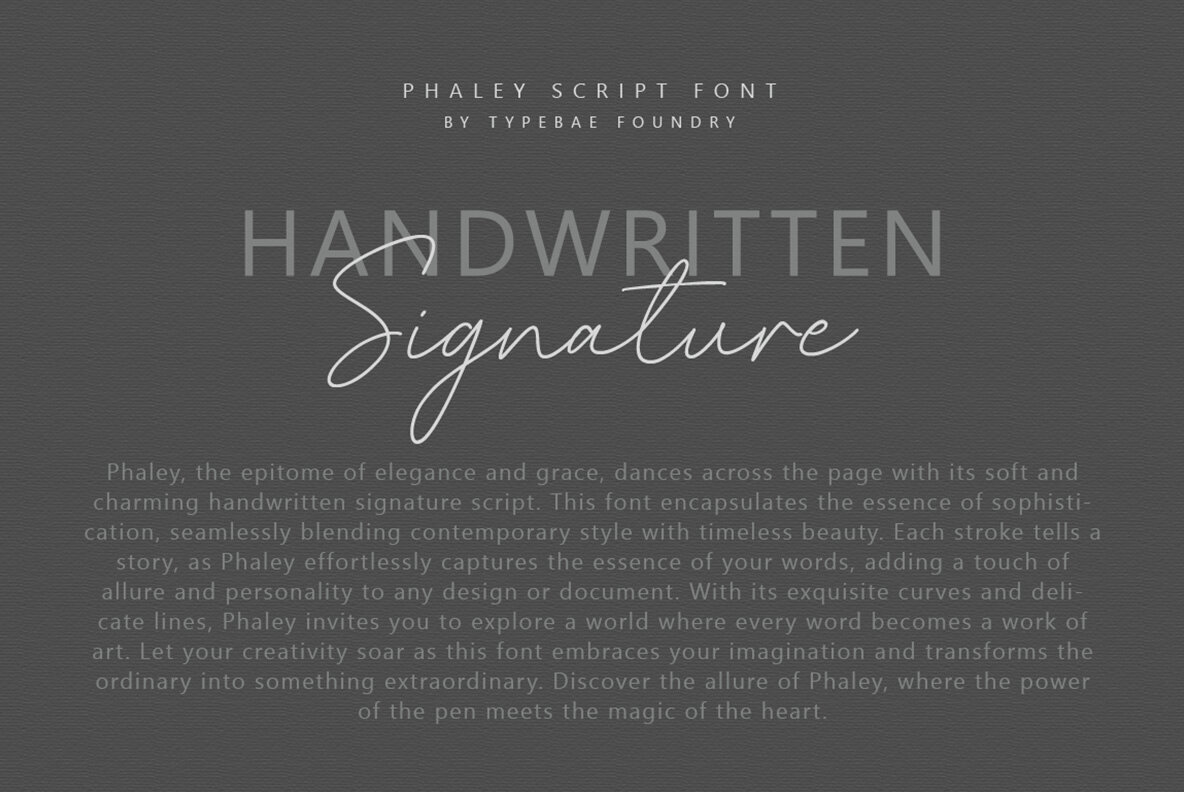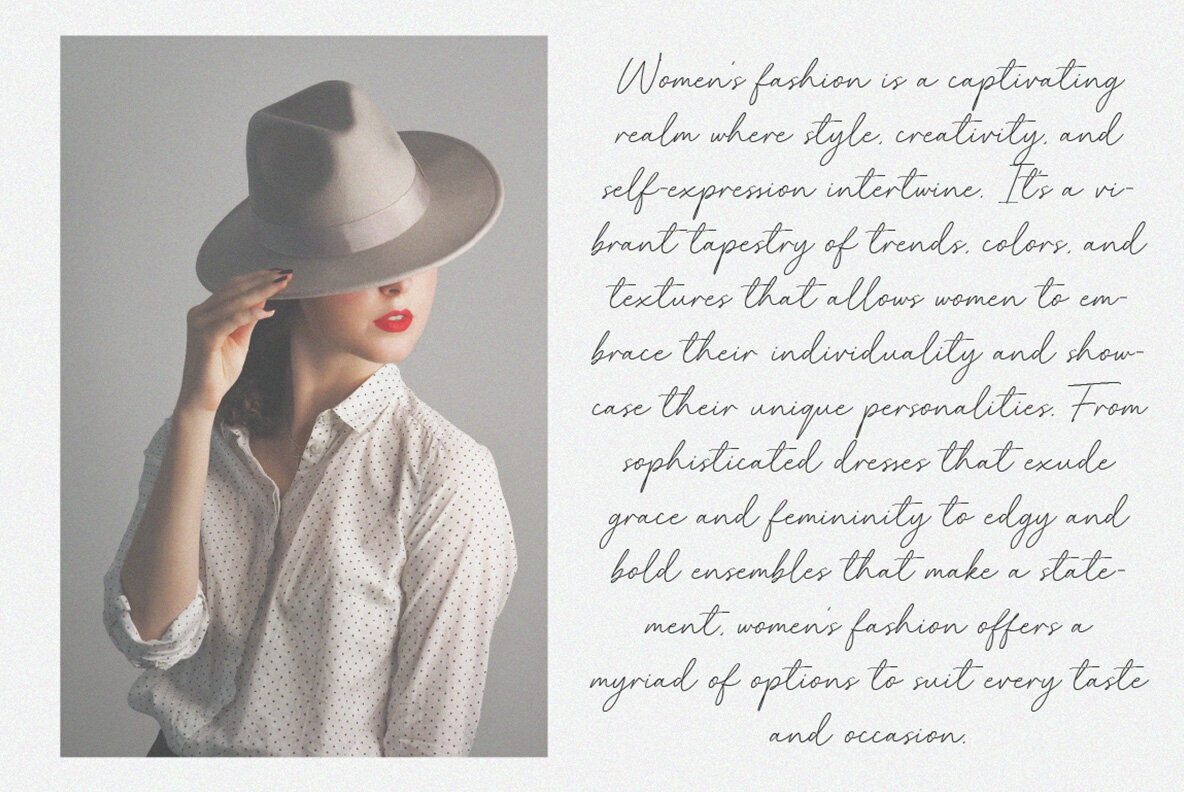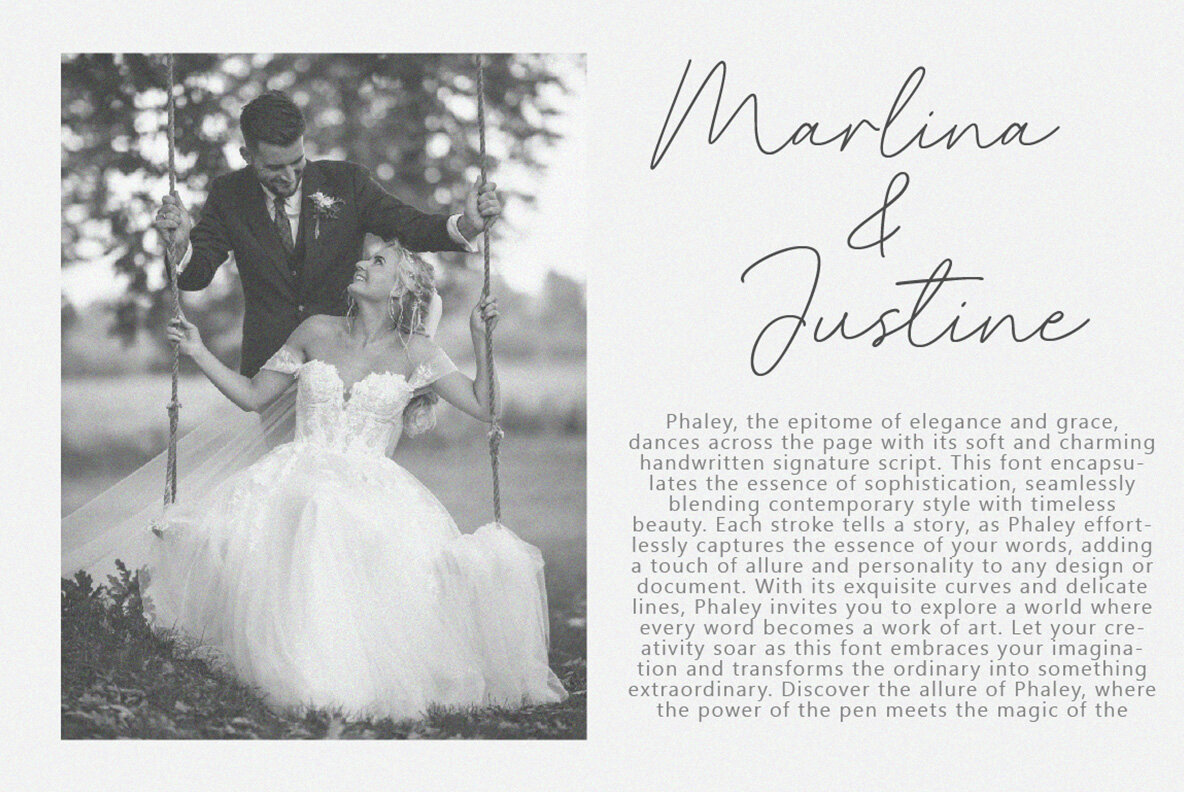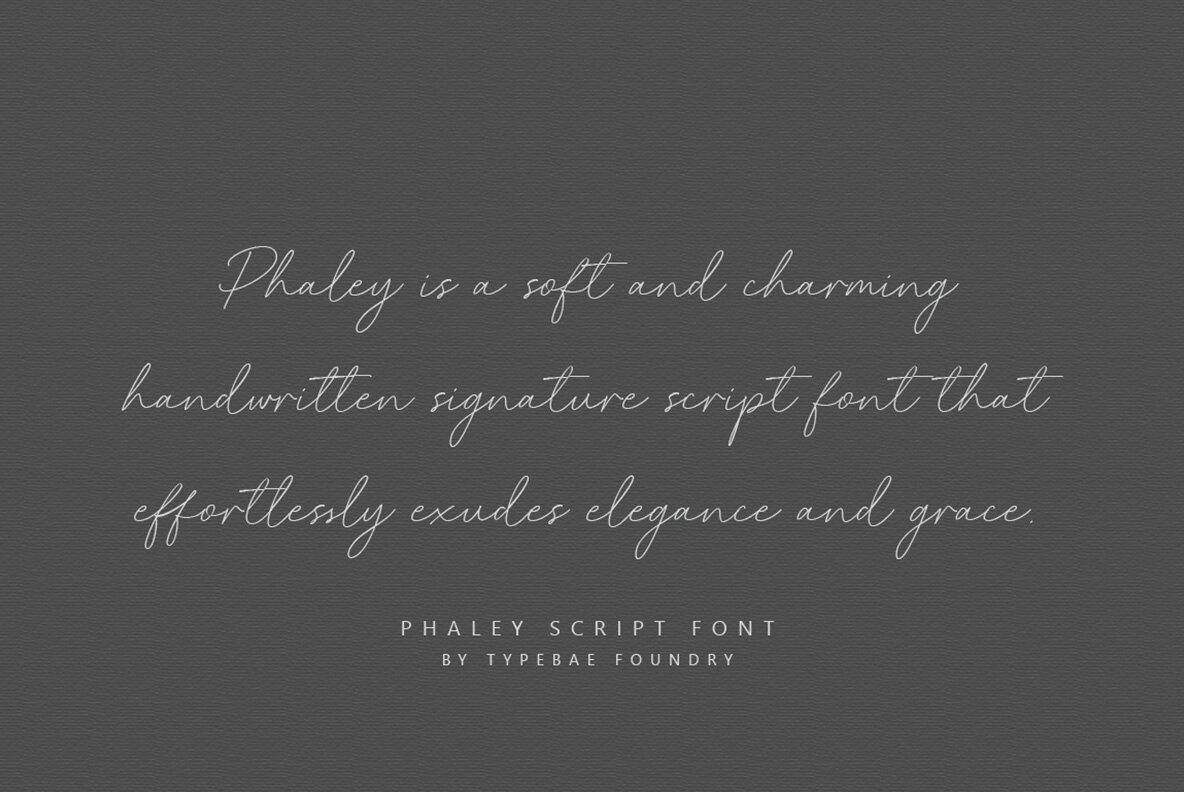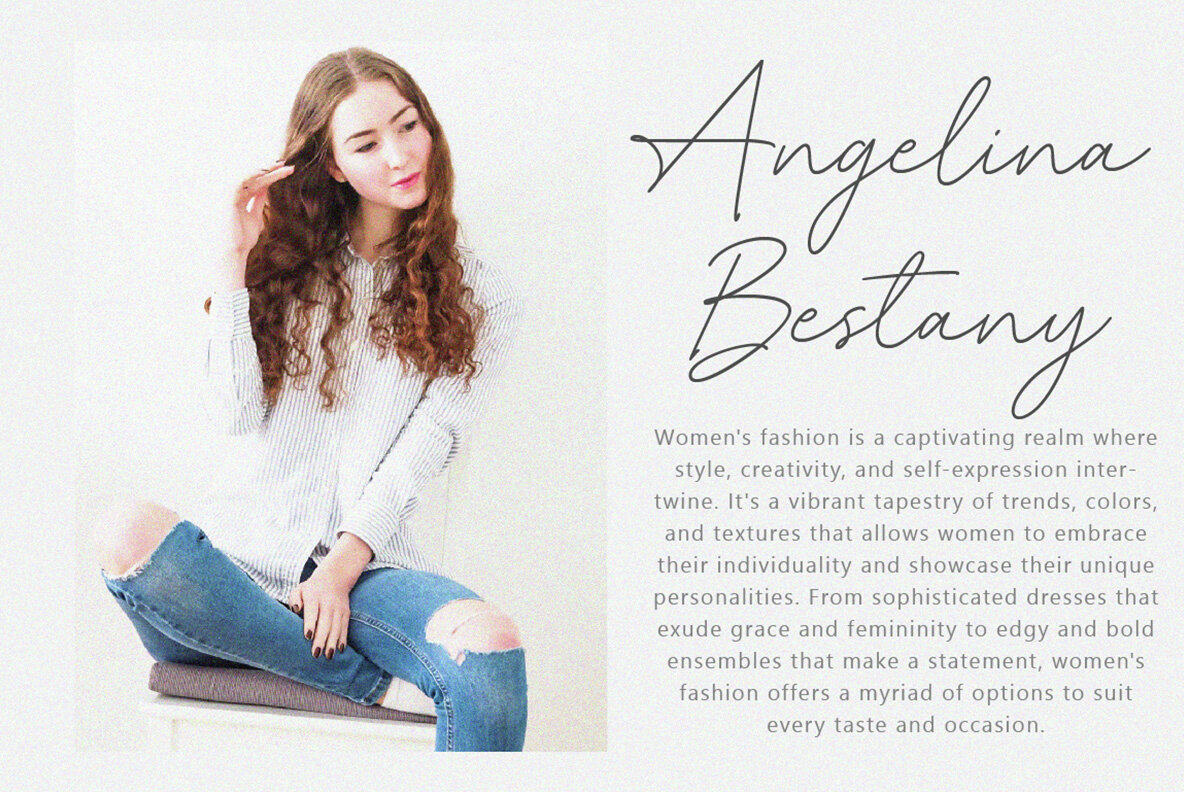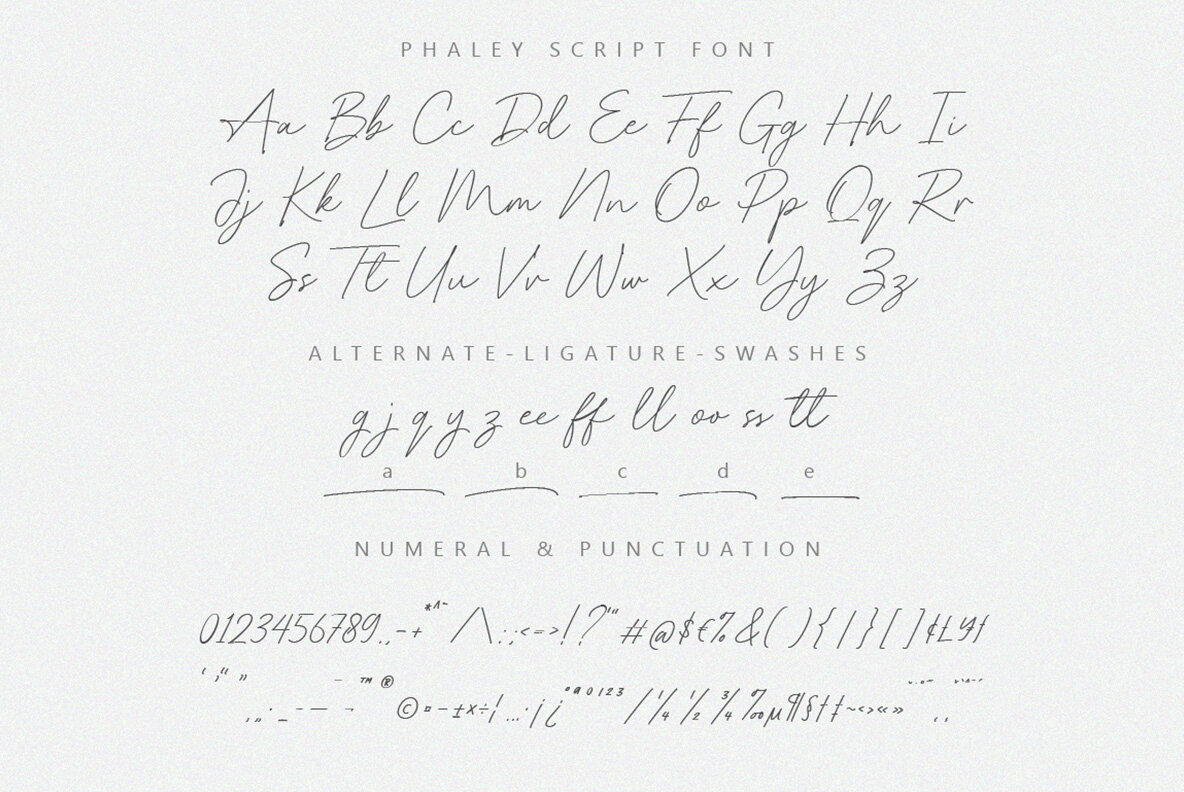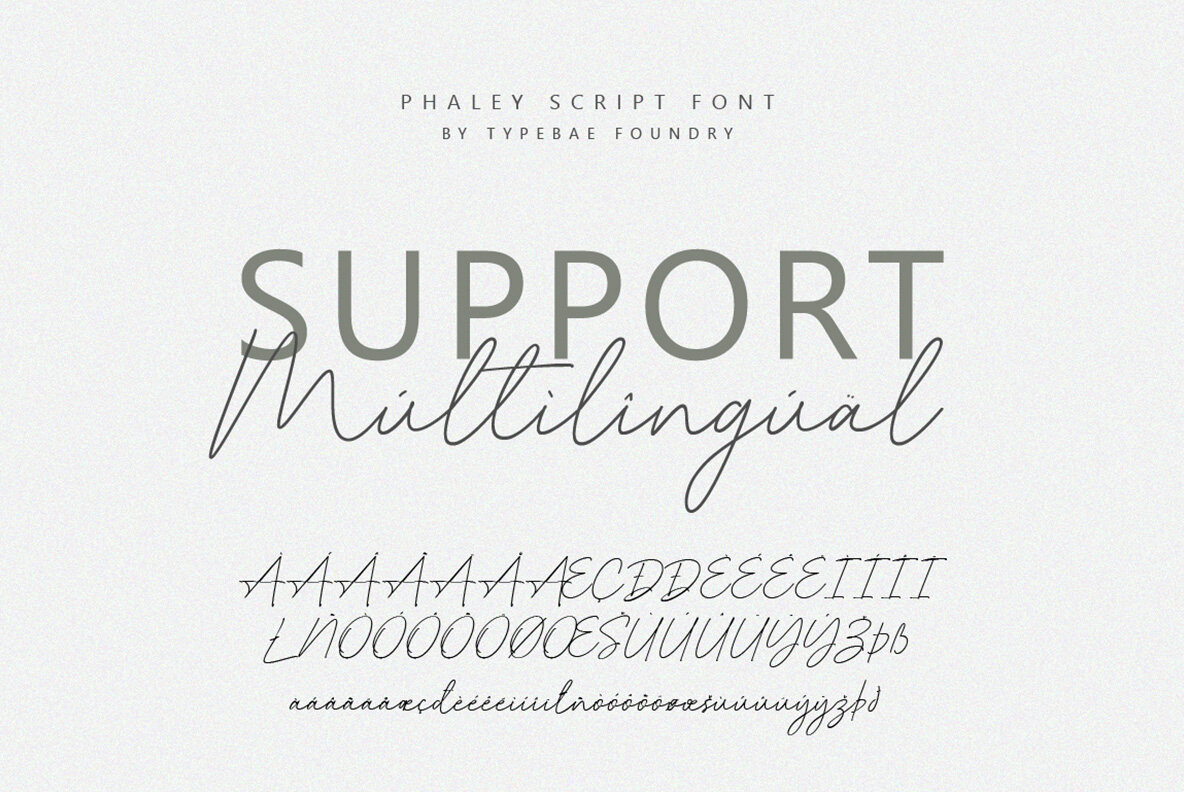
Phaley Font
Phaley Regular
Phaley is a soft and charming handwritten signature script font that exudes elegance and grace. With its delicate curves and timeless beauty, it transforms words into works of art, adding a touch of allure and personality to any design or document.Phaley: Elegant Handwritten Signature Script Font